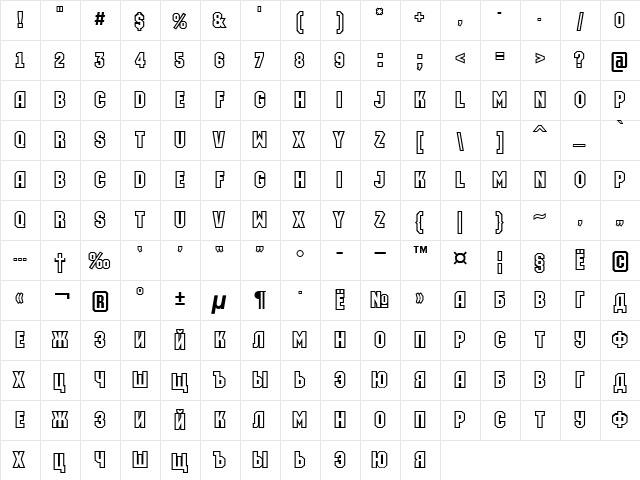
a_MachinaOrtoClg Bold Font Preview
a_MachinaOrtoClg Bold
Design Context for a_MachinaOrtoClg Typeface
a_MachinaOrtoClg offers clean, dependable letterforms without strong stylistic allegiance, making it a practical choice for designers who need flexibility. Its bold stroke weight gives it real presence on the page.
Pro Tip: Use a_MachinaOrtoClg in both headline and body roles to test its range before committing to a single application.